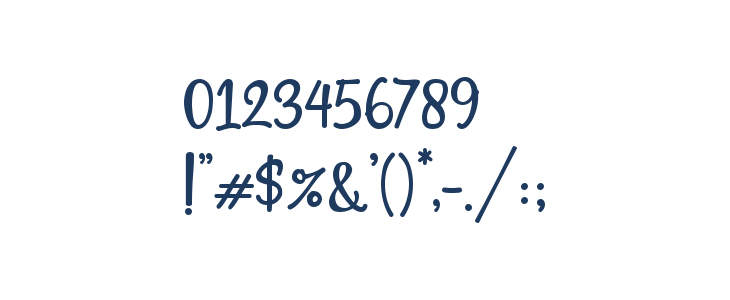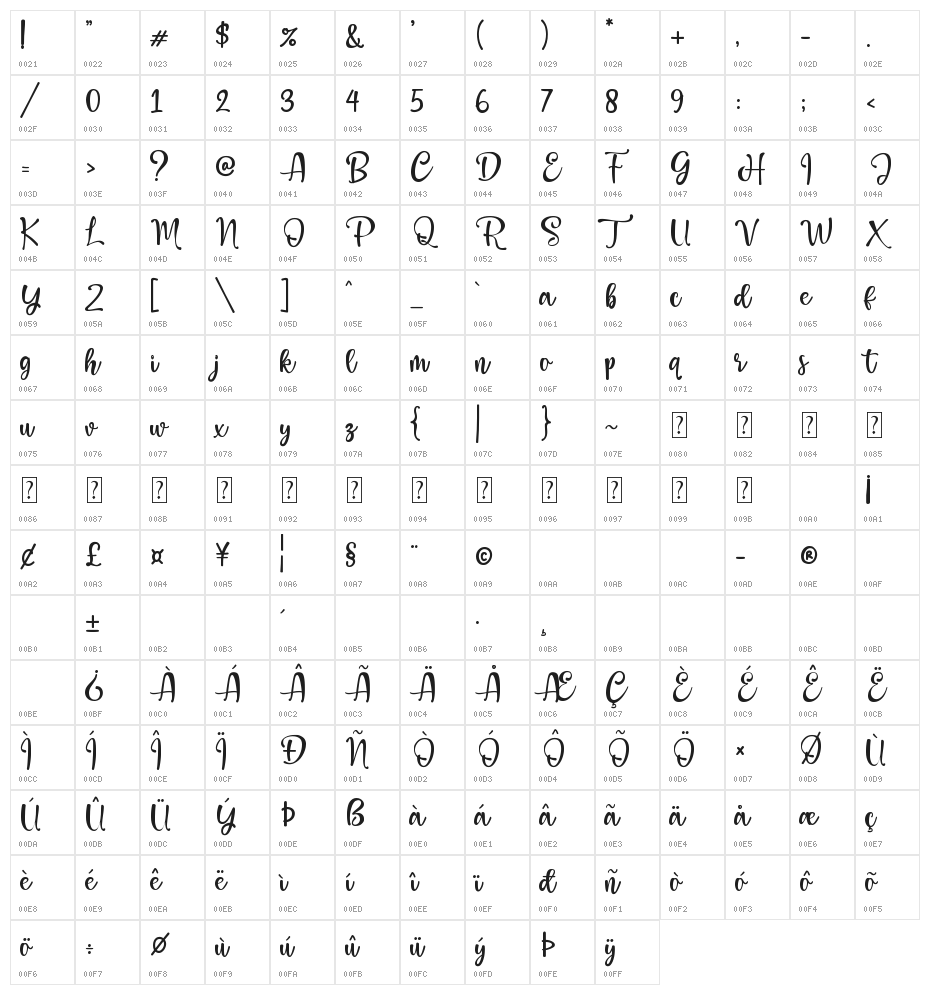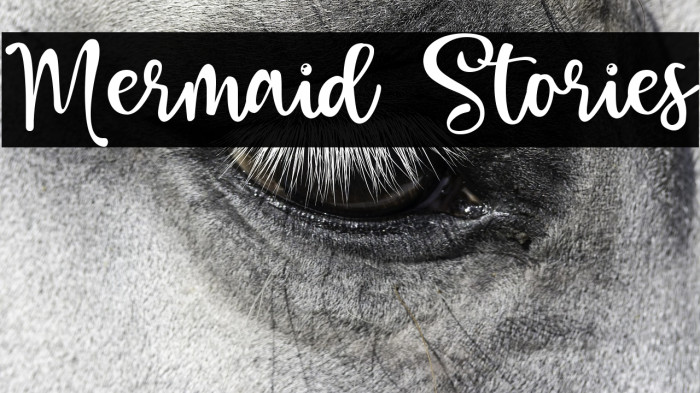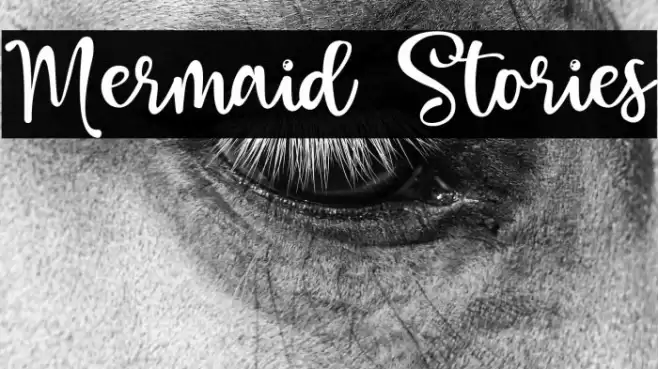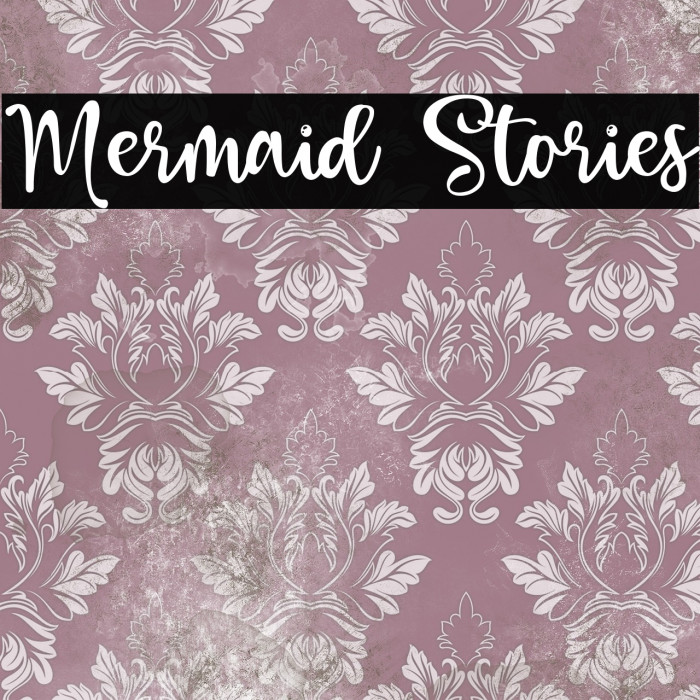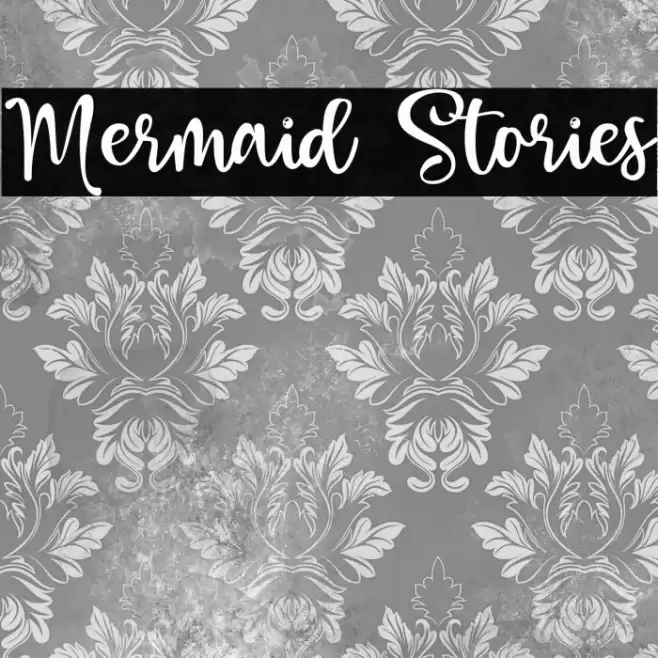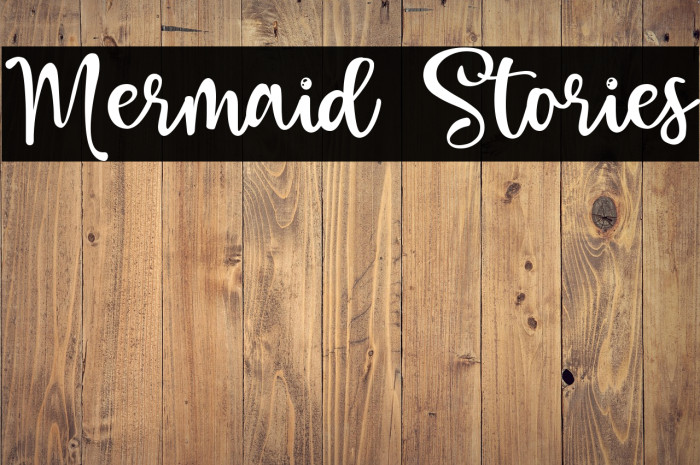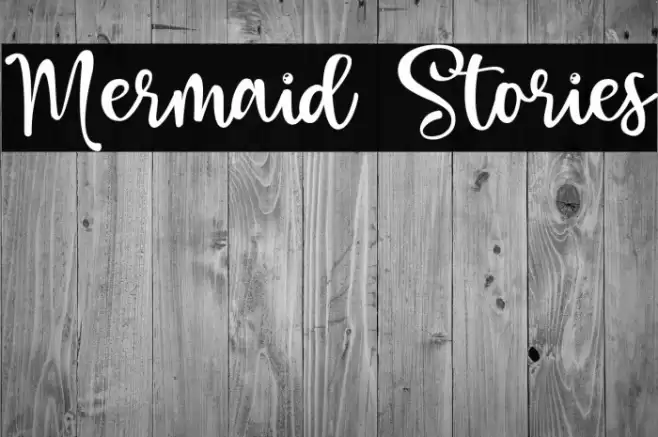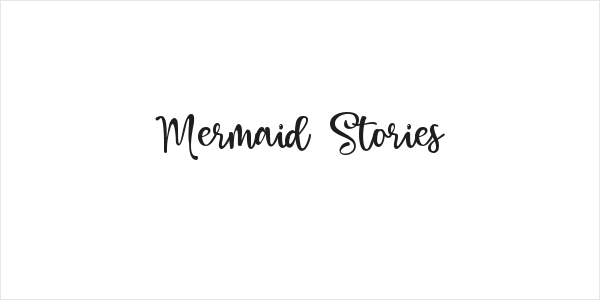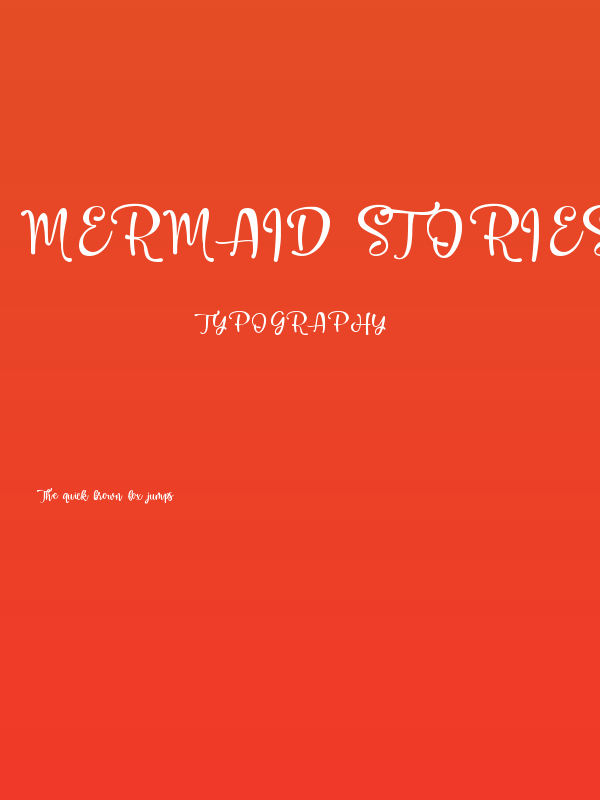
Mermaid Stories Font
Mermaid Stories Description
This font features a playful and whimsical script style, characterized by its flowing, cursive letterforms. The uppercase letters exhibit a graceful elegance with loops and swirls, while the lowercase letters maintain a consistent fluidity. The numbers are bold and rounded, complementing the overall style. Special characters are creatively designed, adding to the font's charm. The font's strokes are smooth and consistent, providing a harmonious appearance that is both lively and sophisticated.